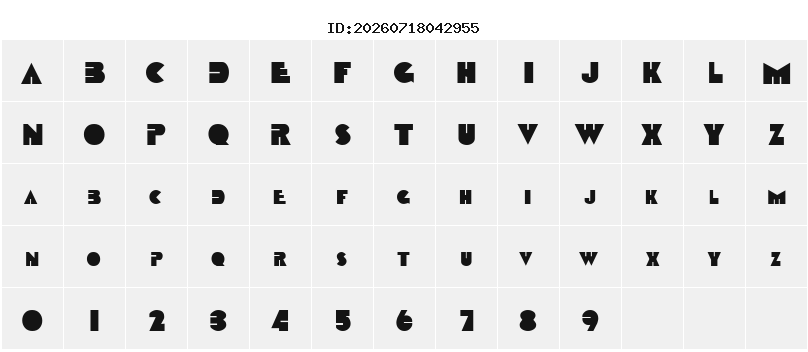
• Font Name: Chumpy
• Full Font Name: Chumpy Regular
About Chumpy.ttf
Chumpy.ttf is a modern, elegant sans-serif font designed for ultimate readability and visual harmony. Perfect for branding, headlines, web design, and print materials.